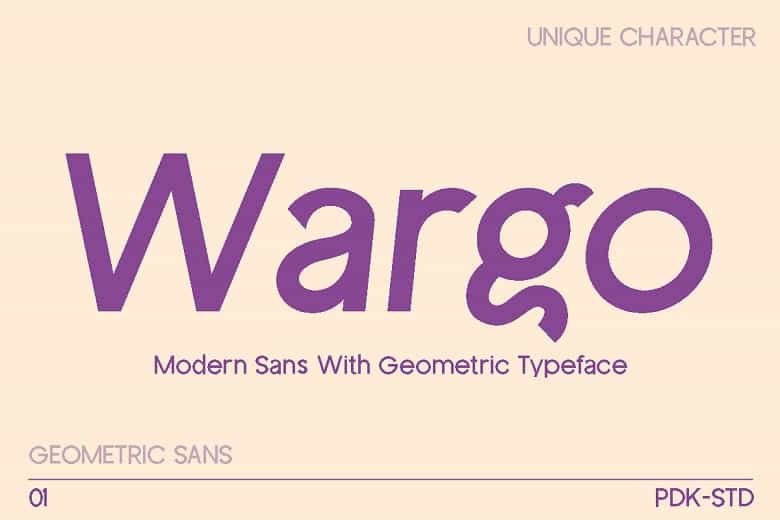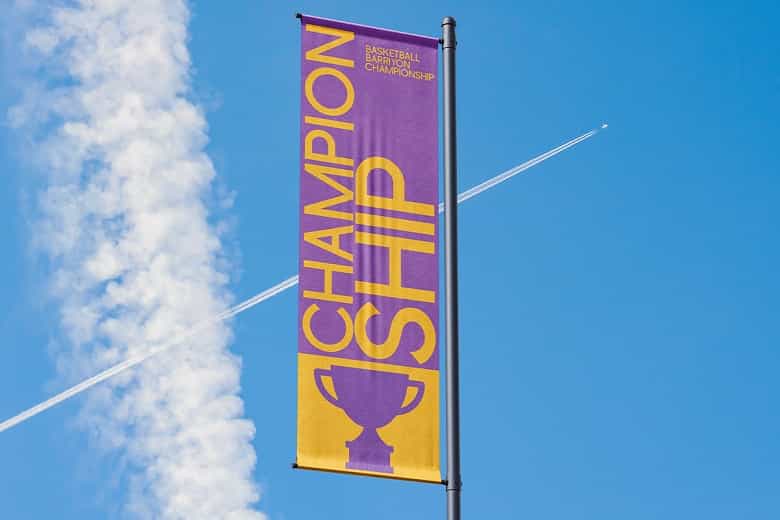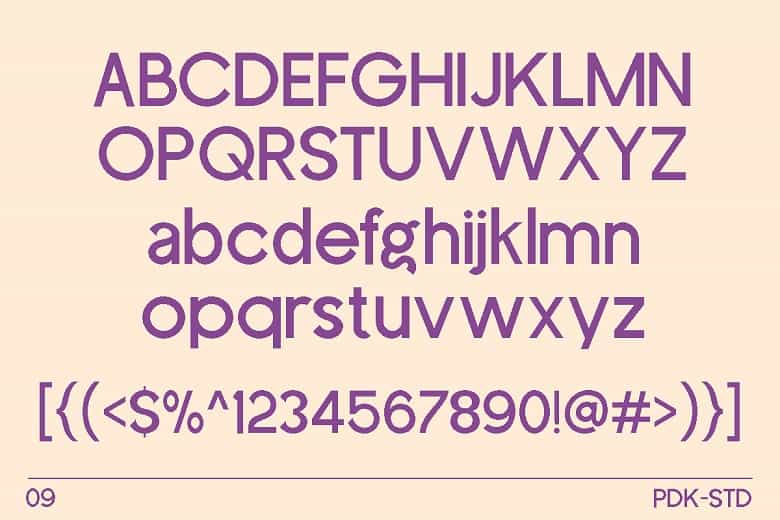
Wargo is a geometric font with rounded corners and curves, charming sans serif font that has special characters for that unique touch. This is a very basic but attractive typeface design that has a contemporary feel to it and at the same time has slightly vintage vibes.